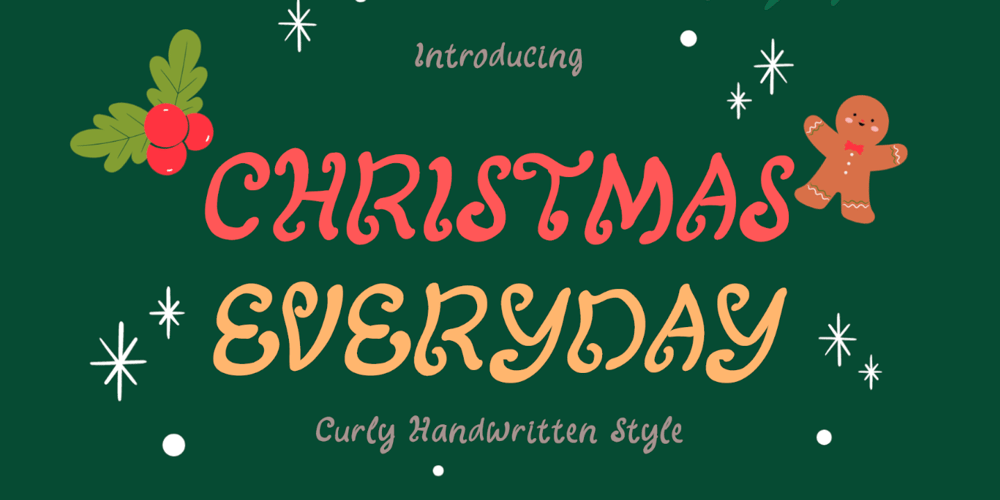
Christmas Everyday Font Family was designed by Isroni Yoga Prasetya and published by Yoga Letter. Christmas Everyday contains 1 styles and family package options. “Christmas Everyday” is a unique and cute handwritten font. This font is equipped with uppercase, lowercase, numerals, punctuation, and multilingual support. Very suitable for Christmas, wedding, engagement, invitations, Valentine, Halloween, Christmas, winter, fall, and others.